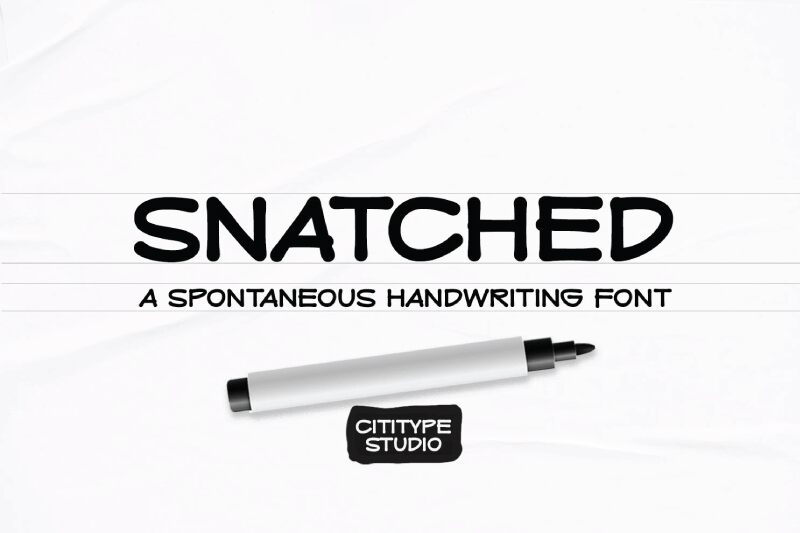
Snatched Display
Snatched Display is a striking handwritten font that exudes personality and flair. Its expanded form adds a bold, expressive character, making it stand out in any context. The fluidity of the strokes creates an inviting feel, while the playful curves add an element of spontaneity.
Visually captivating, Snatched Display is perfect for projects seeking to convey creativity and warmth-ideal for branding, event invitations, or social media graphics. Whether used in large headlines or as accent text, this font effortlessly draws attention and invites engagement. Embrace the vibrant energy of Snatched Display to elevate your design work with its unique charm and distinctive style.